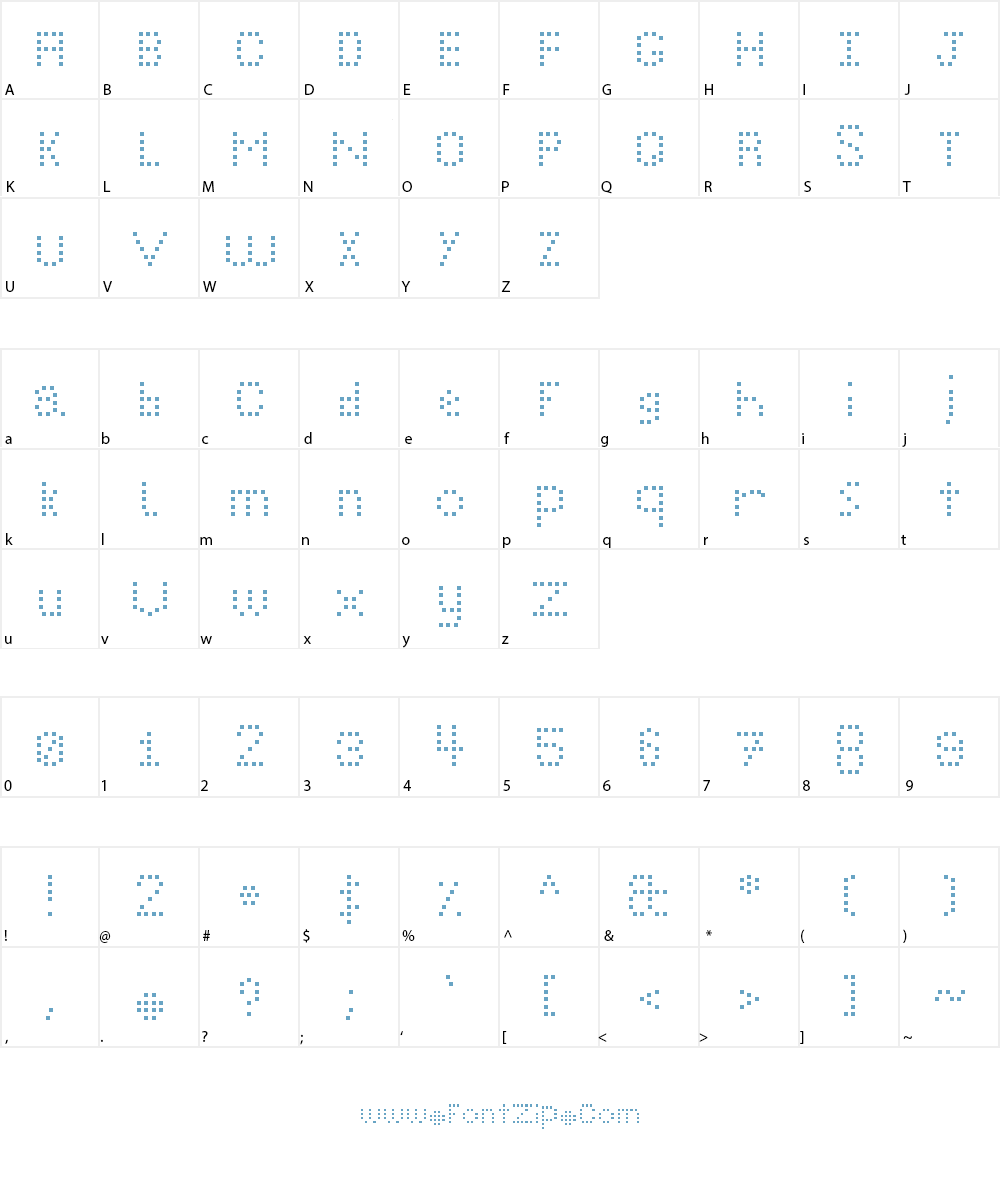
This LCD font, with the success of Xanthus 1 round 2 LCD, is made with BitFontMaker2.
The alternates are on IPA Phonetic Extensions via Unicode.
Here is an example:
A child who plɑyed with my friend on ɑ plɑyɡround.